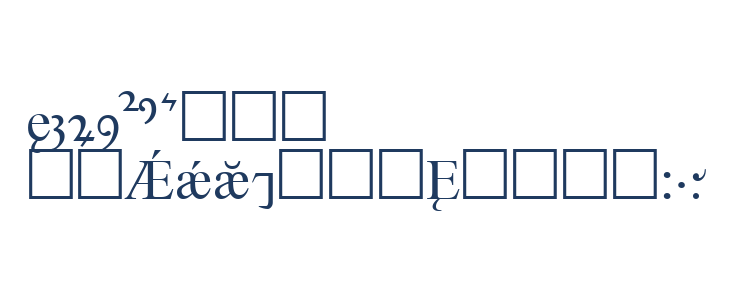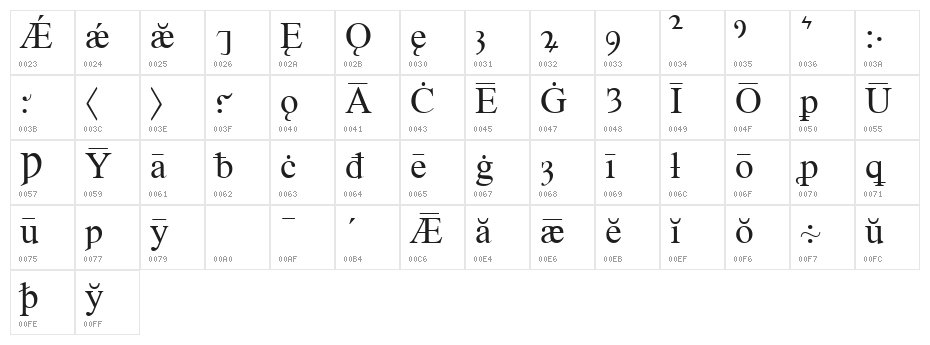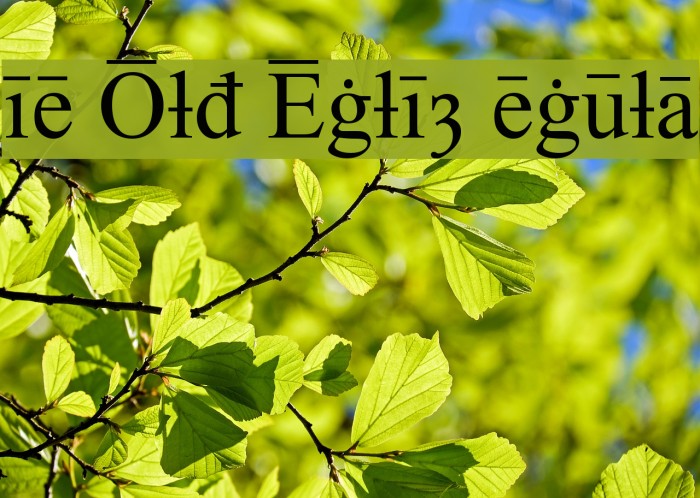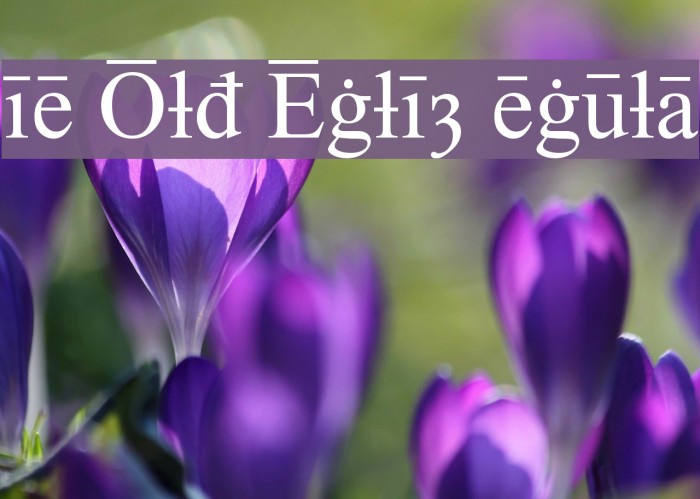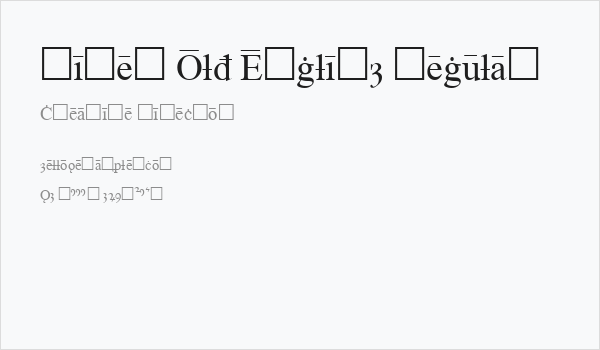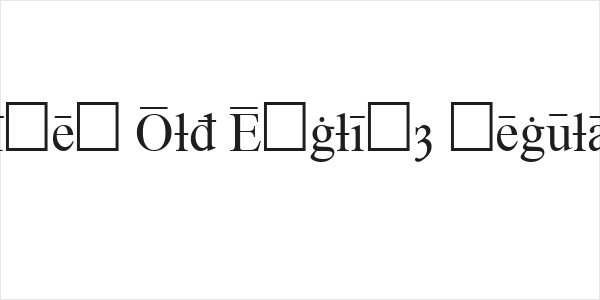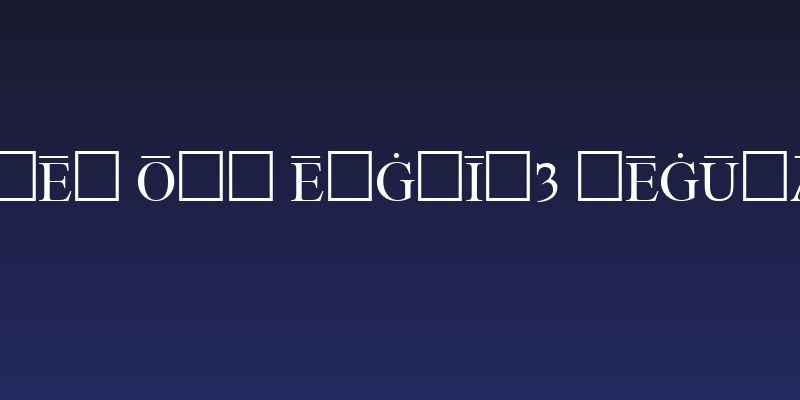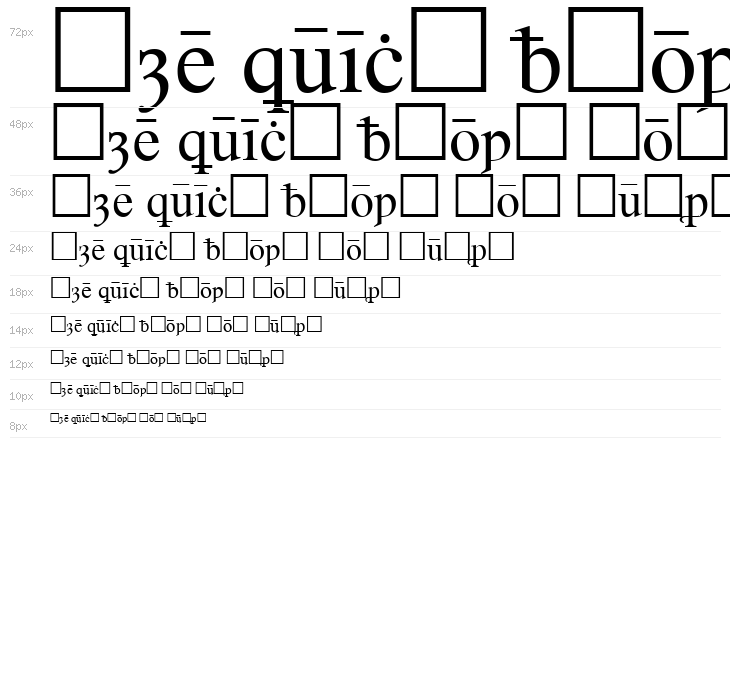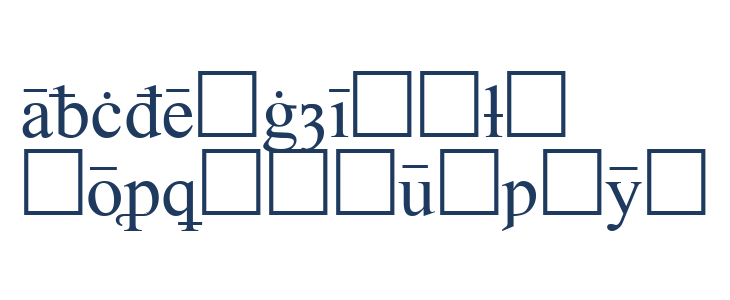
Times Old English Regular Font
Times Old English Regular Description
This font is a classic serif typeface with a traditional and elegant appearance. It features distinct serifs and a moderate contrast between thick and thin strokes, giving it a refined and sophisticated look. The characters are well-proportioned, with a slightly condensed width that enhances readability. The uppercase letters are stately and commanding, while the lowercase letters maintain a smooth and consistent flow. The numerals are clear and balanced, making them suitable for both text and display purposes. Overall, this font exudes a timeless charm, making it ideal for projects that require a touch of elegance and formality.
| Use Case | Headlines, Body text |
| Proposed Projects | Ideal for book typesetting, formal invitations, certificates, and editorial design. |